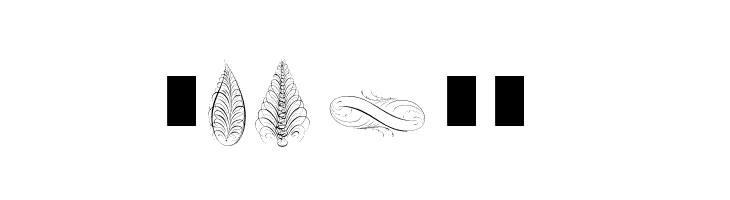
A bold, angular font with a distressed, deformed style.
A bold, distressed grunge font with angular, sharp characters.
A bold, playful font with an organic, splattered texture.
A playful, spiky font with a humorous and unique design.
A dynamic and elegant script font with fluid, cursive strokes.
A cursive, handwritten font with elegant, flowing strokes and medium contrast.
Ornate penmanship flourishes and feather illustrations.
Ornamental feather and flourish illustration set.
Ornate feather and flourish illustrations with a penmanship style.
Ornamental feather and flourish illustrations with a penmanship style.
A bold, 3D decorative font with a vintage, textured style.
A bold, calligraphic font with a medieval, handcrafted style.
A bold, medieval-inspired font with angular edges and intricate curves.
A gothic, medieval-style font with intricate, angular strokes and ornate detailing.
An artistic, angular font with a gothic flair, perfect for dramatic designs.
A bold, three-dimensional font with a geometric and decorative style.
A cursive script font with elegant, flowing strokes and a handwritten appearance.
A bold, scratchy, hand-drawn font with a playful texture.
A bold, geometric font with a modern, futuristic style and high contrast.
A bold, 3D hollow font with geometric structure and dynamic depth.
A bold, 3D decorative font with a modern, geometric style.
A bold, geometric font with a futuristic, digital aesthetic.
A modern, geometric font with parallel line patterns and dynamic shapes.
A bold, italic font with a dynamic, outlined style and tight spacing.
A bold, geometric font with striking contrast and modern appeal.
An elegant, flowing script font with a natural handwriting style.
A dotted, decorative font with a playful and modern aesthetic.
A bold, italicized font with sharp angles and dynamic cuts, exuding a modern, futuristic style.
A bold, geometric font with sharp angles and unique cutouts.
A bold, angular font with a futuristic and geometric design.